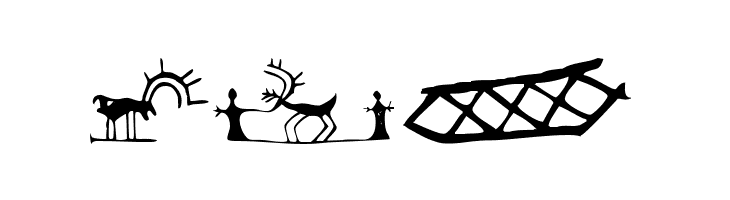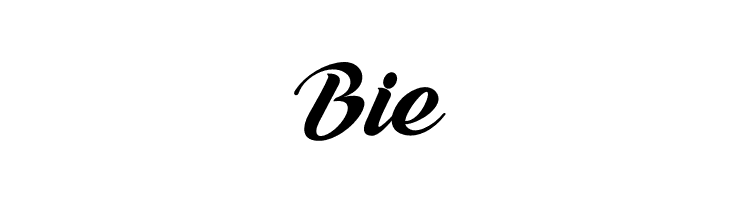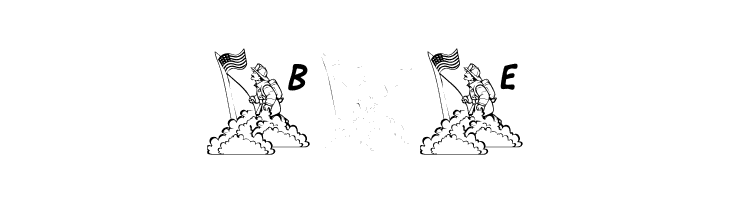
A pixelated, retro-style font with a blocky, 8-bit appearance.
Pictographic, petroglyph-inspired font with hand-drawn symbols.
A bold, playful font with rounded edges and a hand-drawn feel.
A flowing, hand-drawn cursive font with a natural, artistic style.
A bold, modern serif font with strong, thick strokes.
A flowing, elegant script font with interconnected letters and bold strokes.
An elegant, high-contrast script font with flowing, decorative characters.
A graceful script font with elegant, flowing strokes and sophisticated style.
An elegant script font with decorative swirls and modern flair.
A decorative font with characters accompanied by flag-waving illustrations.